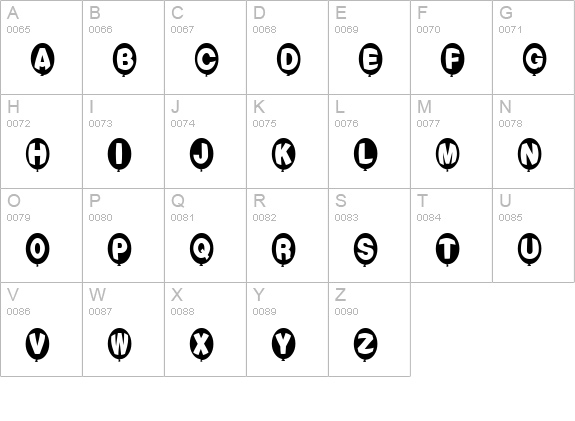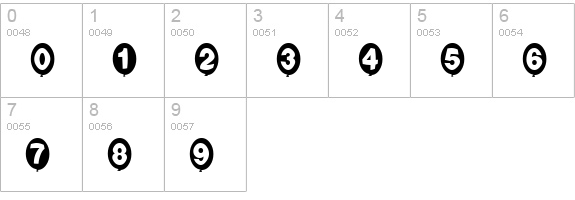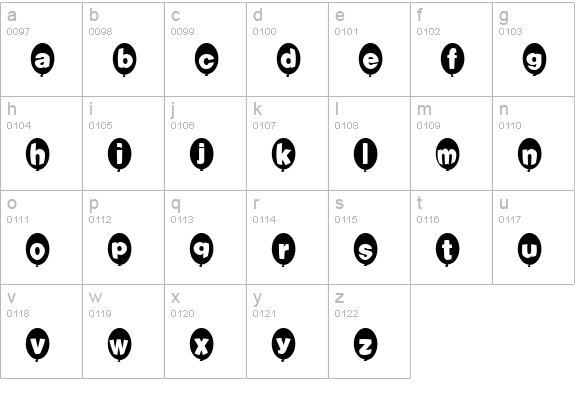
Balloons Normal is the standard, neutral variant in the Balloons typeface family \xE2\x80\x94 well suited to general body text, paragraphs, and standard typographic work.
Balloons Normal font is a whimsical and playful typeface that brings a touch of fun to any design project. With its rounded edges and bubbly appearance, this font is perfect for creating eye-catching headings, titles, and signage. The Balloons Normal font is versatile and can be used for a variety of projects, from birthday invitations to children's book covers. Best of all, this charming font is available for free download at FontsMarket.com. Whether you're a graphic designer, illustrator, or hobbyist looking to add a pop of personality to your work, Balloons Normal font is a fantastic choice. Download it today and let your creativity soar with this delightful and cheerful typeface.